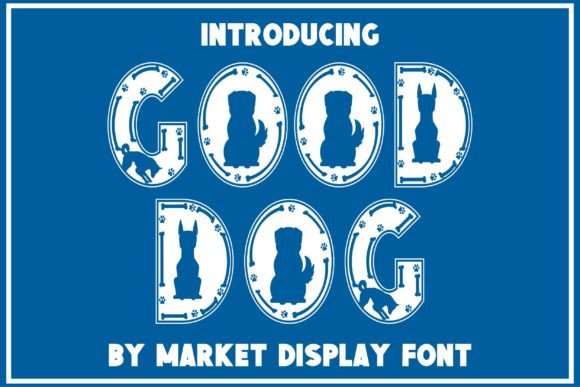
Unleash the playful charm of your designs with Good Dog Font, a whimsical decorative masterpiece that exudes playfulness and authenticity. This adorable font is the perfect companion for your creative projects, adding a touch of unique charm to everything you create.
Journey into a world of creativity with Good Dog Font, the ideal choice for expressing your playful side. Let your imagination run wild as you craft blog posts that sparkle with personality, logos that leap off the page, branding that barks with confidence, and advertisements that wag their digital tails. With Good Dog Font, your designs will be the talk of the town, leaving a lasting impression on your audience.
Good Dog Font is a versatile talent, ready to elevate your invitations with a playful twist, transform greeting cards into heartwarming expressions, and add a touch of whimsy to your planners and photo albums. Let your creativity run free as you decorate your world with Good Dog Font, turning everyday items into works of art.
The possibilities are endless with Good Dog Font. Use it to create stunning posters that capture the joyful spirit of your events, design eye-catching social media posts that demand attention, or craft merchandise that showcases your love for the canine companions in your life. Good Dog Font is the ultimate font for dog lovers, animal enthusiasts, and anyone looking to add a touch of lightheartedness to their designs.
Don't settle for ordinary fonts that blend into the background. Embrace the playful spirit of Good Dog Font and let your creativity shine. Its unique charm and versatility will transform your designs into works of art, leaving a lasting impression on your audience.